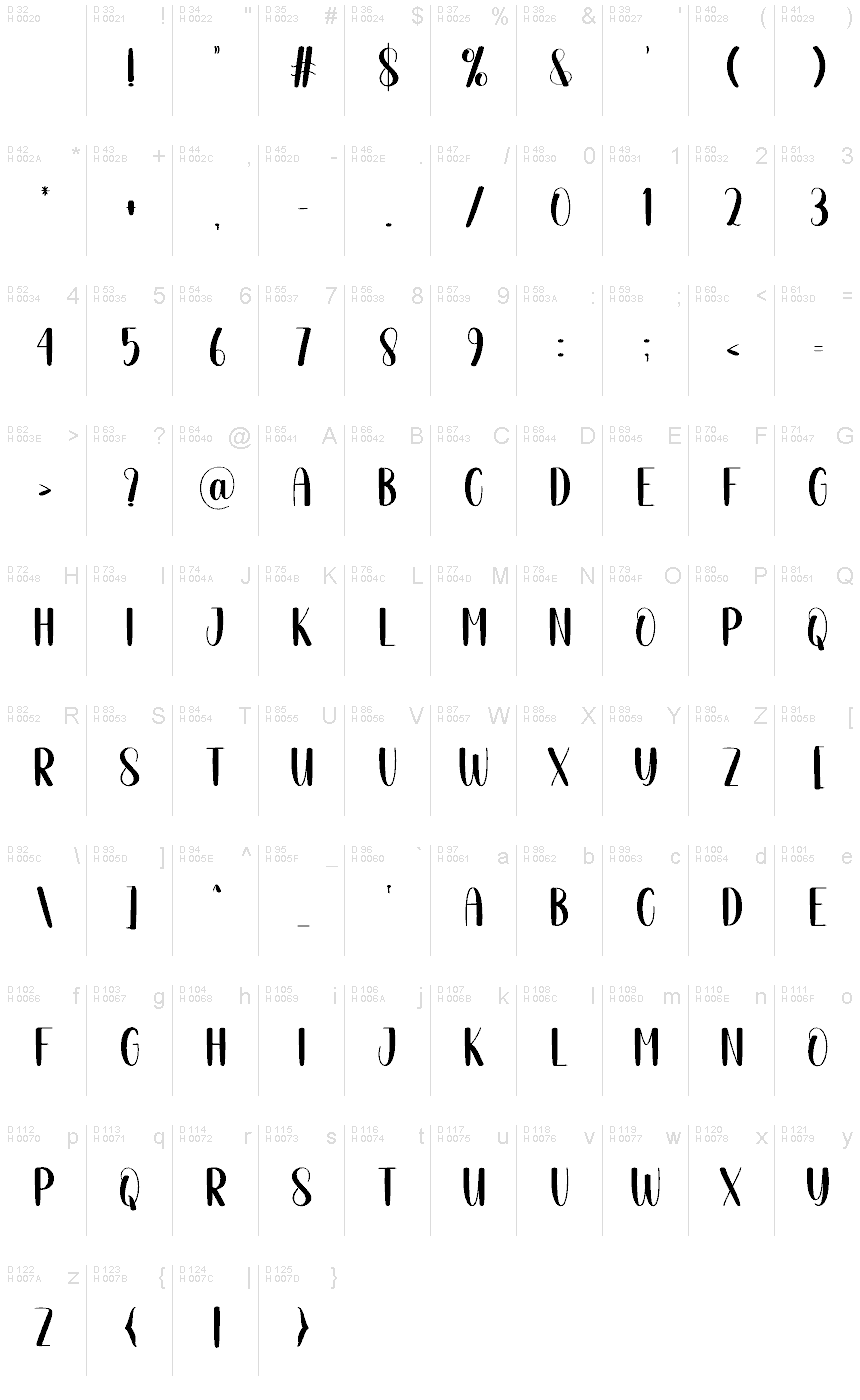
Muscle Sports
Muscle Sports font by Andi Moz is a stylized brush typeface with decorative curves and elegant strokes. It features expressive letters and high contrast, alarming anyone who gazes at it by surprise. The unique design of every character gives the font some freshness that is not to be found in other fonts of this style.